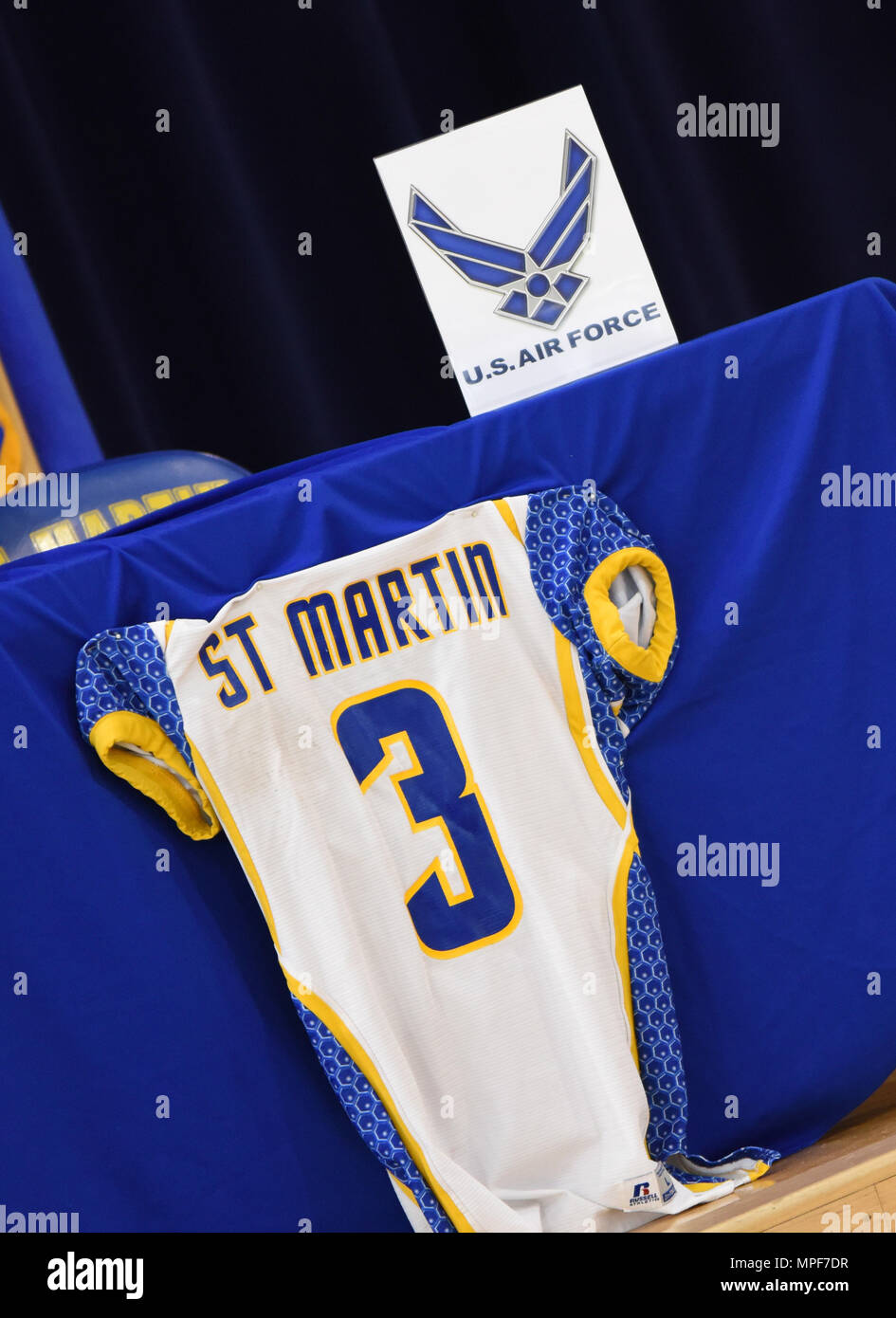
High School Football Jersey Font, Indeed recently has been hunted by consumers around us, perhaps one of you personally. People now are accustomed to using the internet in gadgets to view video and image information for inspiration, and according to the name of this article I will discuss about
Football jersey football sports jersey college athletic varsity high school discover a huge collection of fonts and hand reviewed graphic assets. High school usa by abdulmakesfonts. Click to find the best 126 free fonts in the football style.
Here is a great selection free of american football fonts to help you make your own custom football jerseys. Click to find the best 41 free fonts in the high school style. Browse by alphabetical listing by style by author or by popularity.
Football attack by dedi tri anggara. Old school united is a classic touch on a bold and striking font that gives off the jock image you thought you left back in high school. Looking for school football jersey fonts.